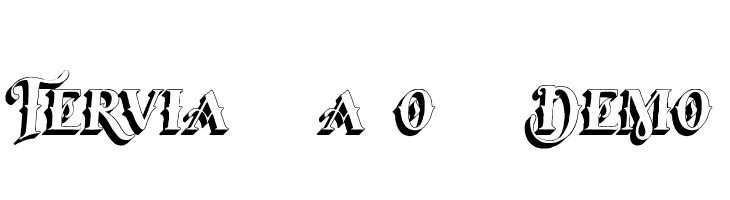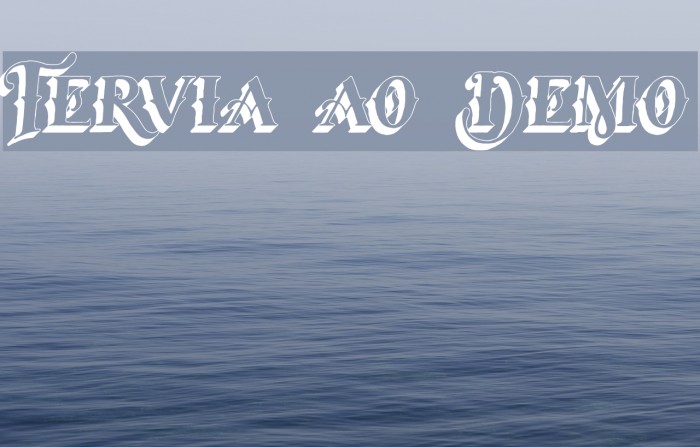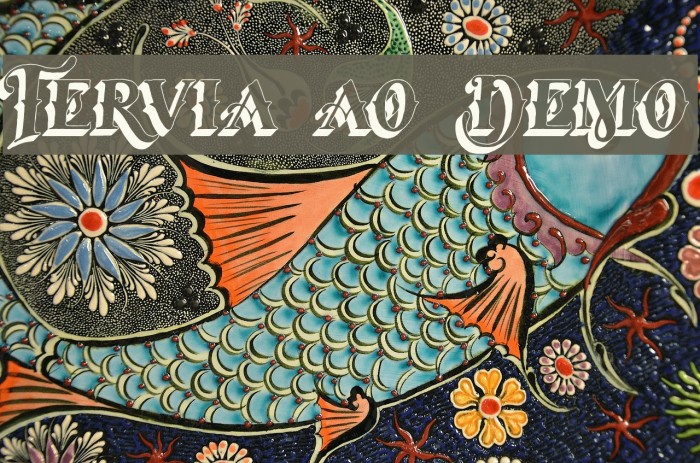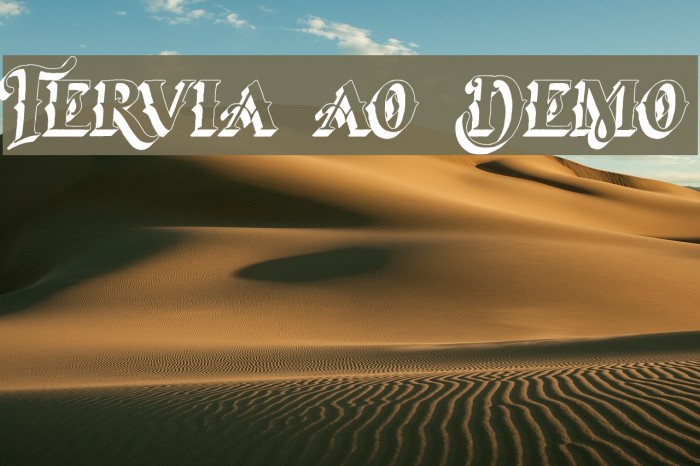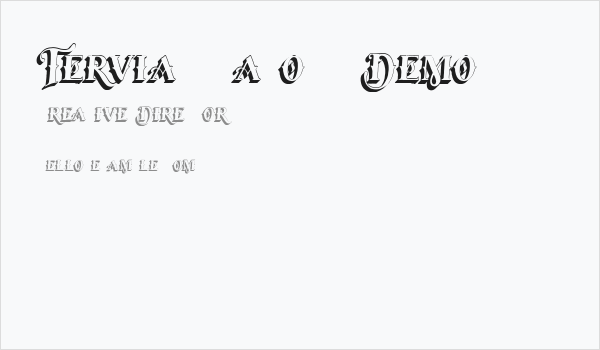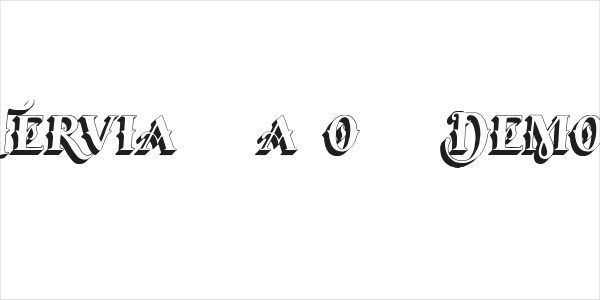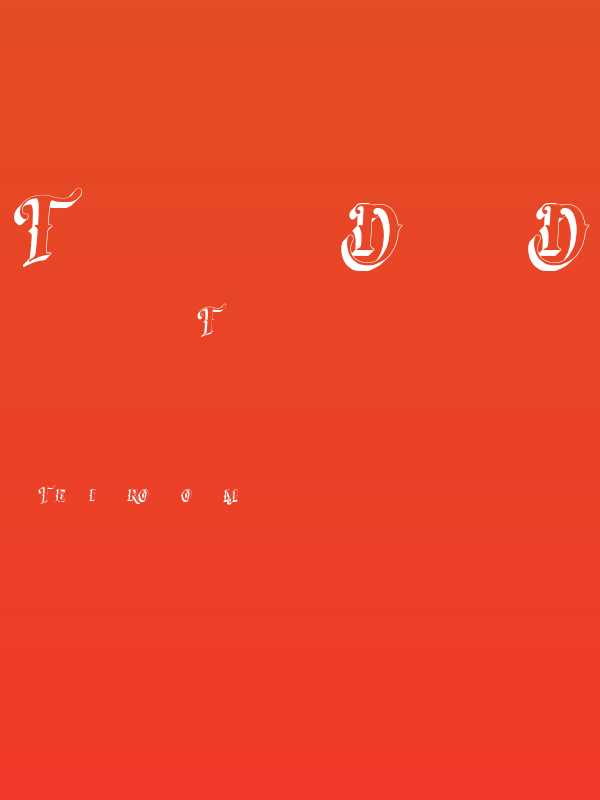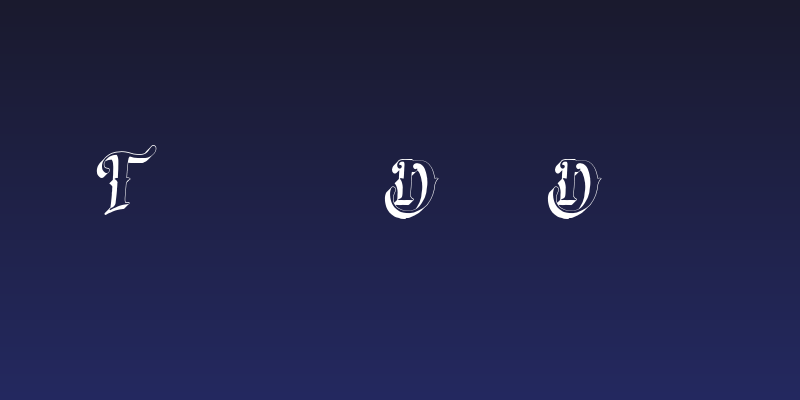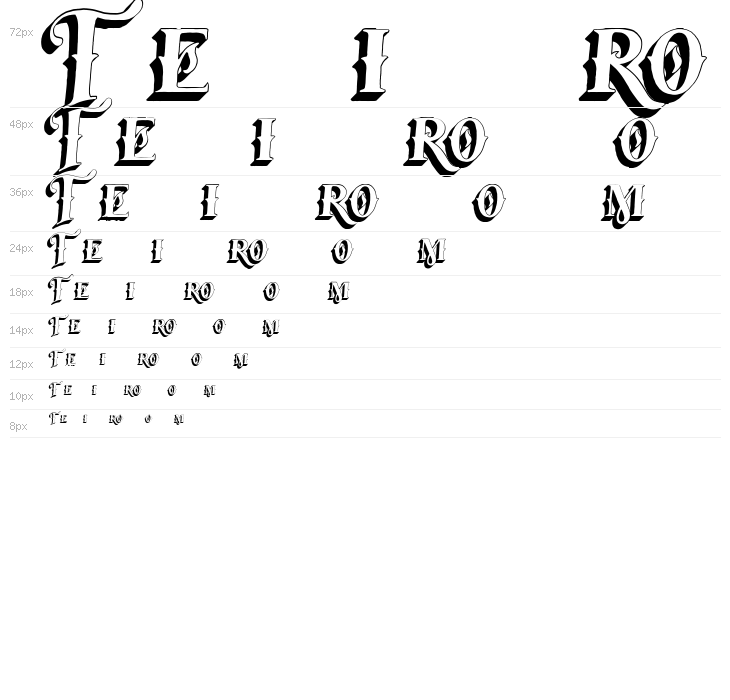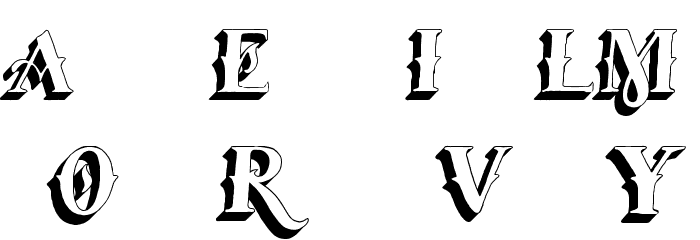
Tervia Shadow2 Demo Font
Tervia Shadow2 Demo Description
This font features a bold, decorative style with a distinct shadow effect that gives it a three-dimensional appearance. The characters are intricately designed with flourishes and embellishments, reminiscent of vintage or medieval typography. The shadowing adds depth and a dramatic flair, making it stand out prominently. Each letter has a unique, artistic quality, with varying stroke widths that contribute to its ornate look. The font's overall aesthetic is both classic and eye-catching, suitable for projects that require a touch of elegance and sophistication.